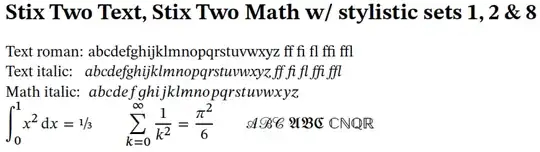
Update Aug. 2013: Since posting the initial version of this answer back in Sept. 2011, (at least) two more Unicode math fonts have joined the TeX/LaTeX scene: TeX Gyre Termes Math (to go with TeX Gyre Termes, a Times Roman clone) and Tex Gyre Pagella Math (to go with TeX Gyre Pagella, a Palatino clone). I've edited the example code below to include these two math fonts; the total of math fonts shown is now up to six 1.
Update May 2018: Over the past five years or so, several additional Unicode math font families have become available. I've updated the code and screenshots shown below to include the following, additional math fonts: Stix, Stix Two, Libertinus, and DejvaVu. I have deliberately not included Neo Euler as its development status is "abandoned". I also haven't included Minion Math since it is a commercial font that's not available free of charge.
As the other answers and comments have already pointed out, it's not easy in pdfLaTeX to switch from one math font group (say, Computer/Latin Modern) to another. The packages I'm familiar with which have matching text and math fonts are the default Computer/Latin Modern group (loaded if no other font group is specified), mathptmx (Times Roman look), and mathpazo (Palatino). There are also the txfonts and pxfonts packages, which give you Times and Palatino, but the hinting and glyph substitution isn't as good as with mathptmx and mathpazo. Within just the last few months, the newtxmath (and newtxtext) packages have come along; they correct virtually all of the shortcomings of the txfonts package and add quite a bit of new functionality as well. I'm not familiar with math fonts designed specifically to go with Charter text fonts.
Even though it's not straightforward (or even possible?!) to switch between entire math font families within the same document if you use pdfLaTeX, it's actually quite easy to do so in XeLaTeX and LuaLaTeX. The following MWE gives a demonstration of ten different matched text and math fonts: Latin Modern, XITS/XITS Math, TeXGyre Termes, TeXGyre Pagella, Palatino/Asana Math, and Cambria Math, as well as (addition 2018-May) Stix, Stix Two, Libertinus, and DejaVu.